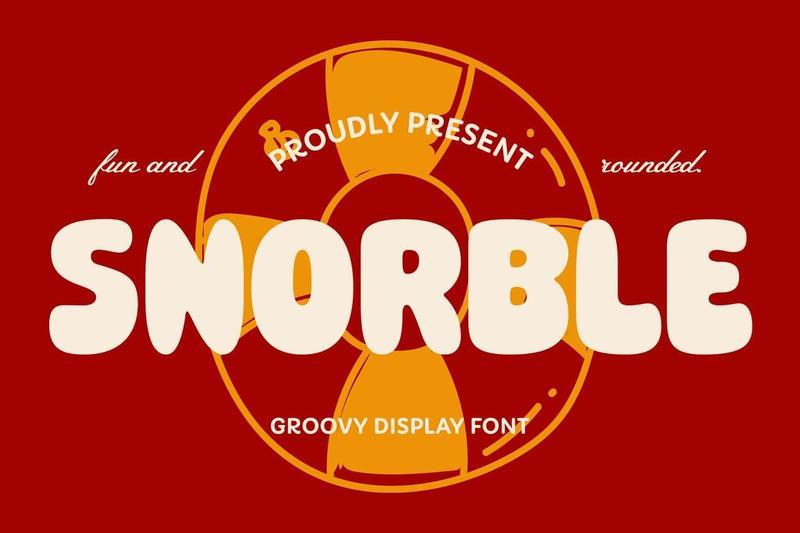
Snorble – Sans Serif Display Font 8U764J9
Snorble is a playful display font featuring bold, rounded letterforms with charming personality. Perfect for kids branding, packaging, posters, logos, social media, books, and creative merchandise. Its multilingual support and eye-catching style make every design fun, memorable, friendly, and highly impactful across digital and print projects.